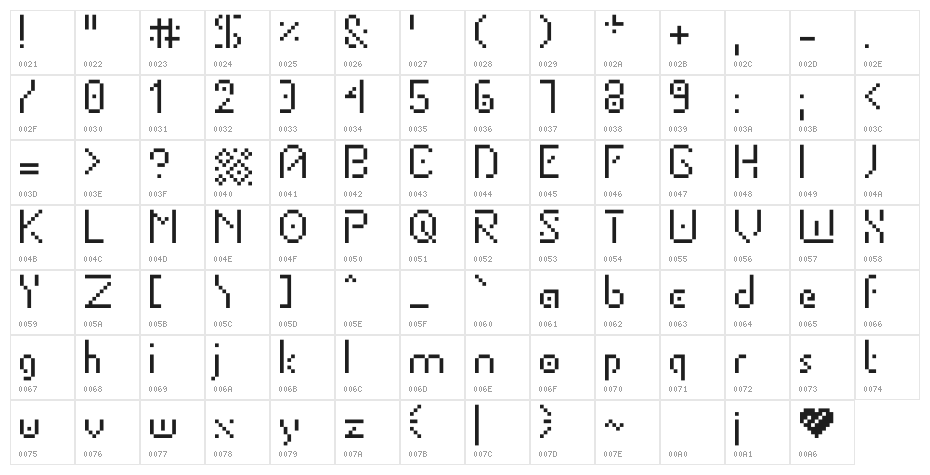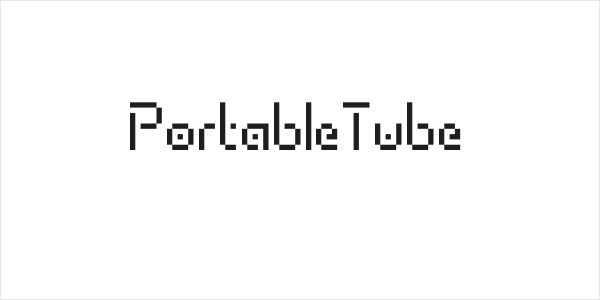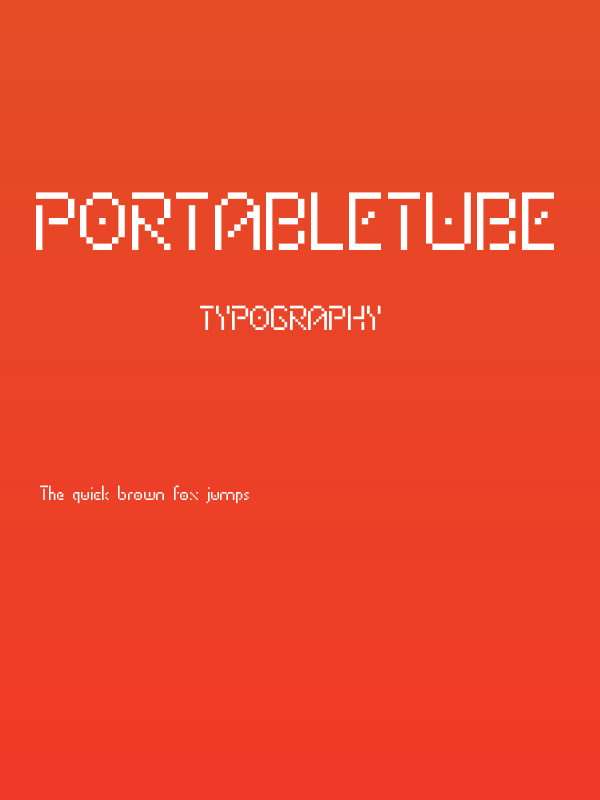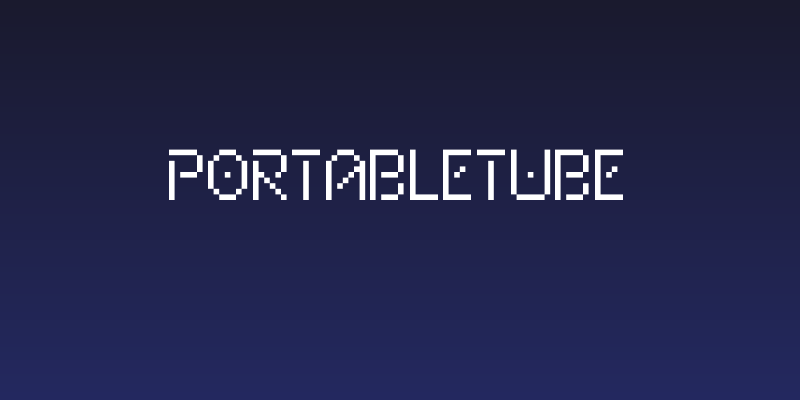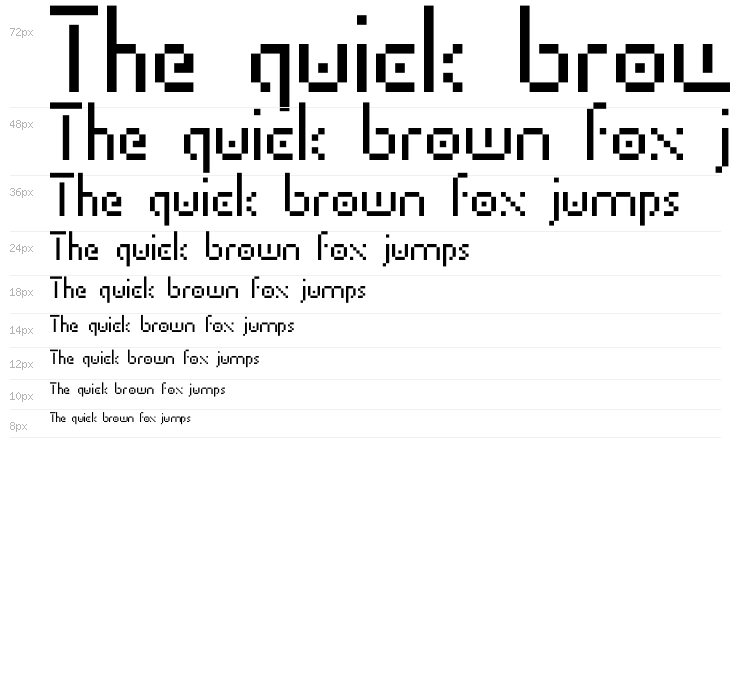
PortableTube Font
PortableTube Description
This font features a distinct pixelated style, reminiscent of early digital displays and retro video games. Each character is constructed with a grid-like precision, giving it a blocky and geometric appearance. The uppercase and lowercase letters maintain a consistent height, while the numbers and special characters follow the same pixelated design. The font's uniformity and simplicity make it easily legible, yet its unique style adds a playful and nostalgic touch. This font is ideal for projects that aim to evoke a sense of nostalgia or a digital aesthetic.
| Overall Style | Retro, Digital |
| Use Case | Headlines, Logos, Digital displays |
| Proposed Projects | Ideal for video game design, digital art projects, retro-themed posters, and tech-related branding. |